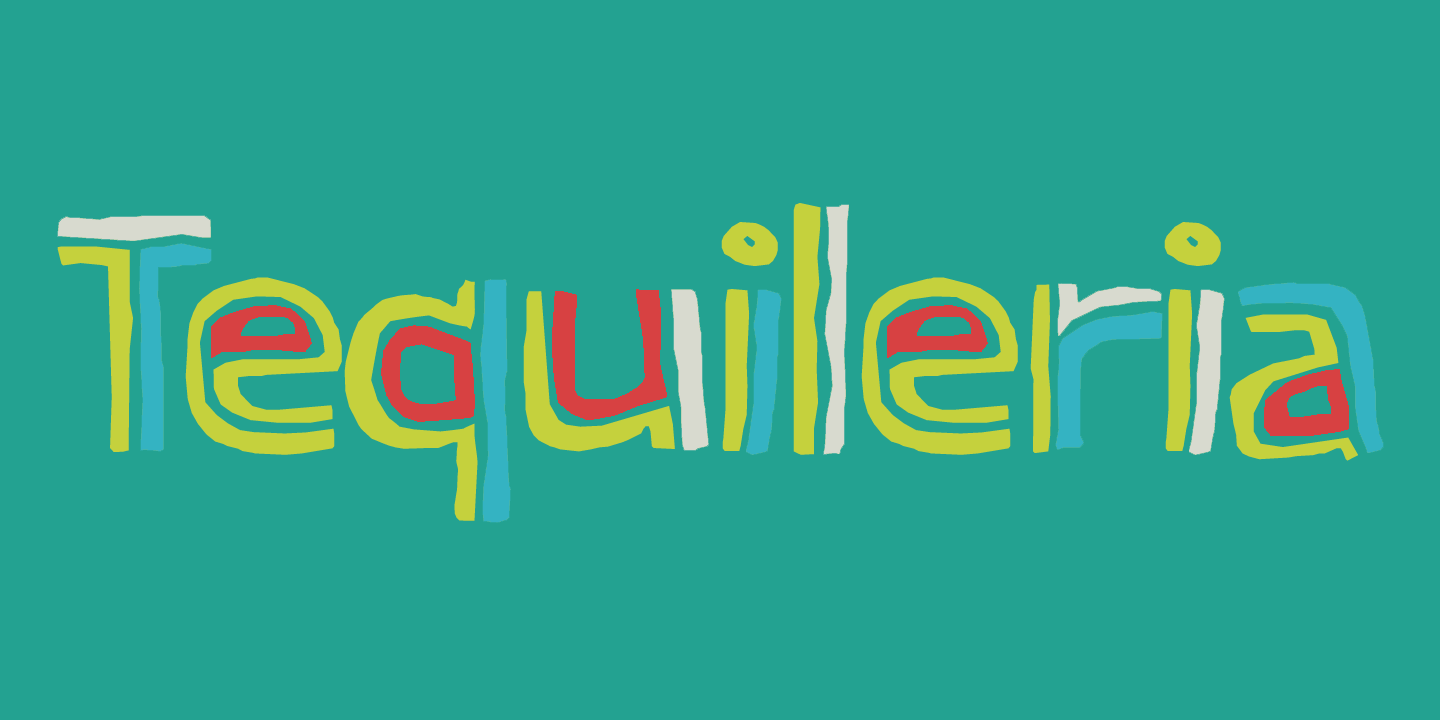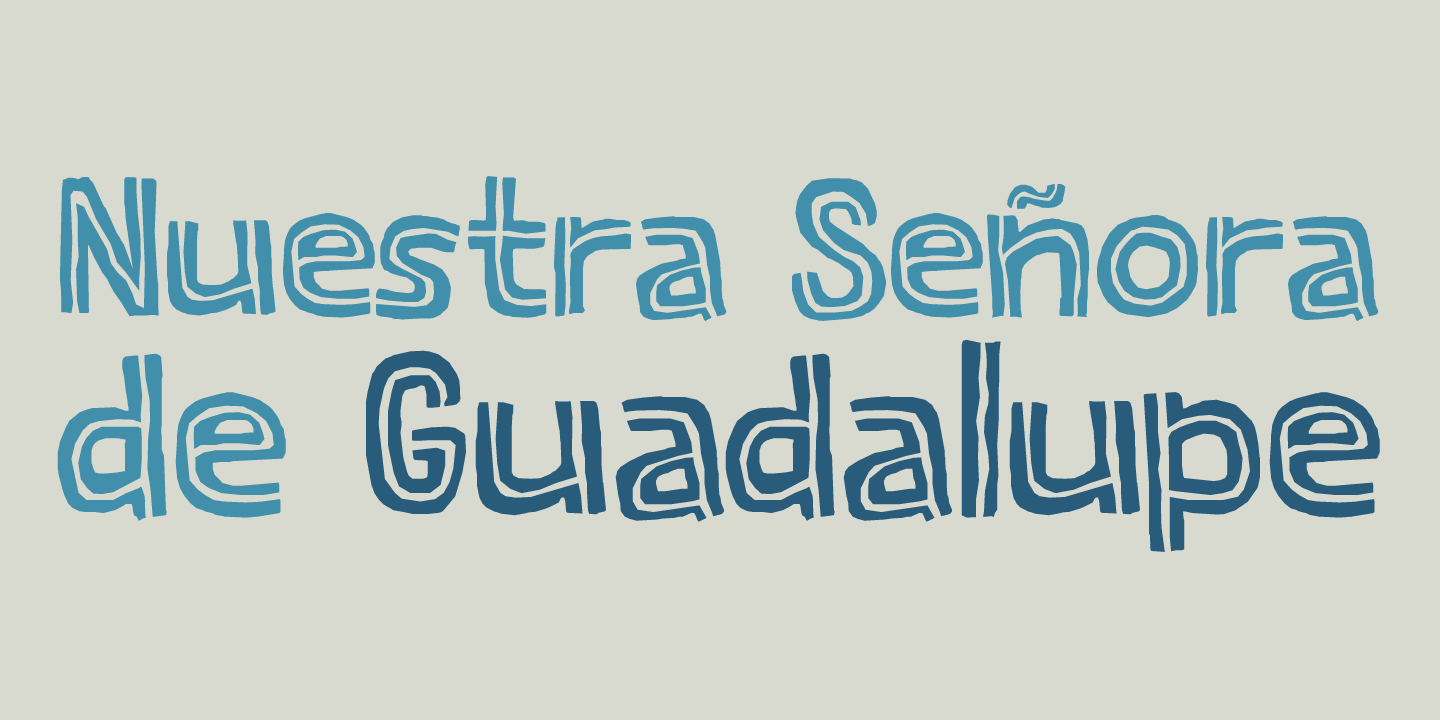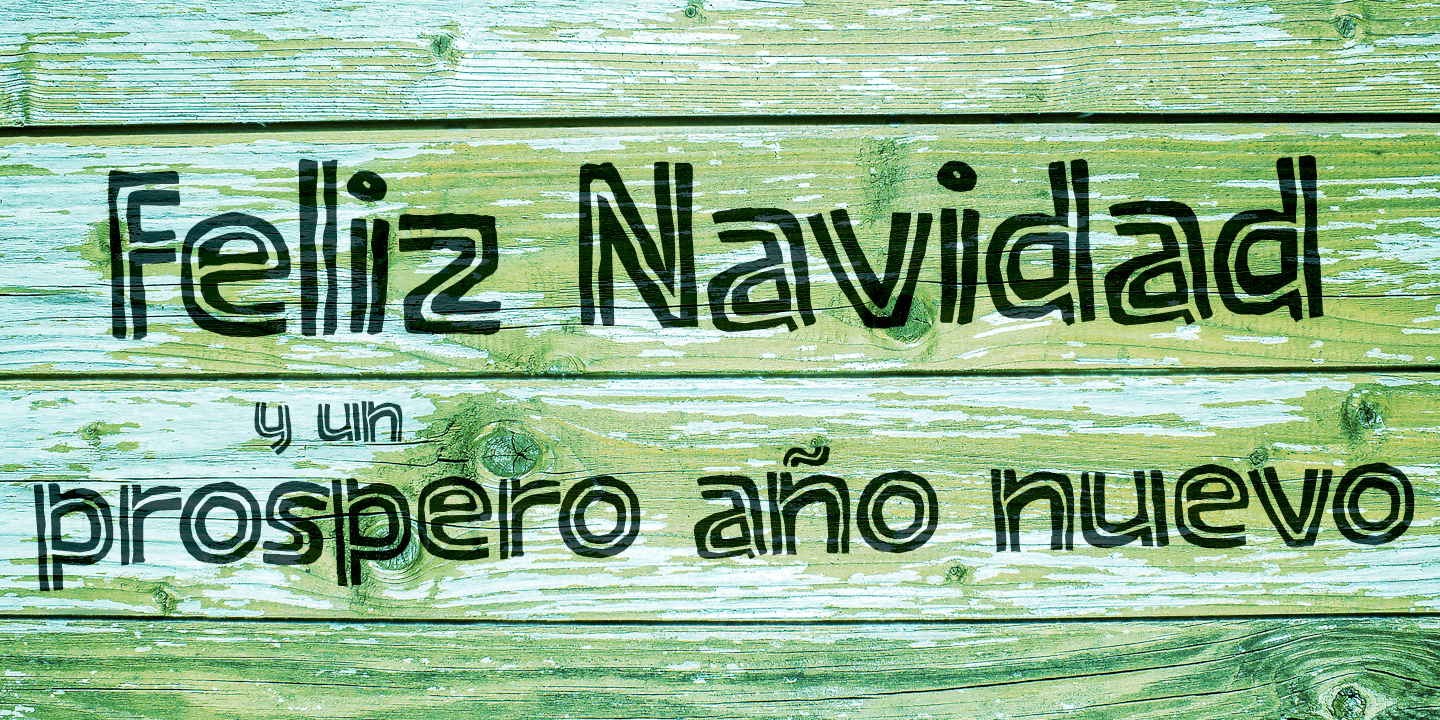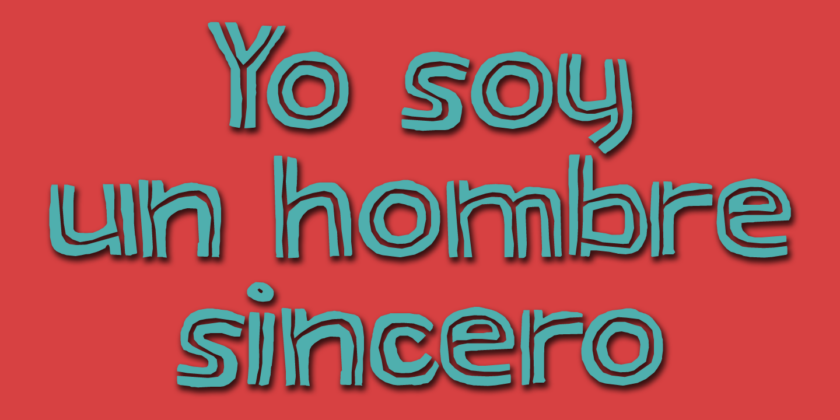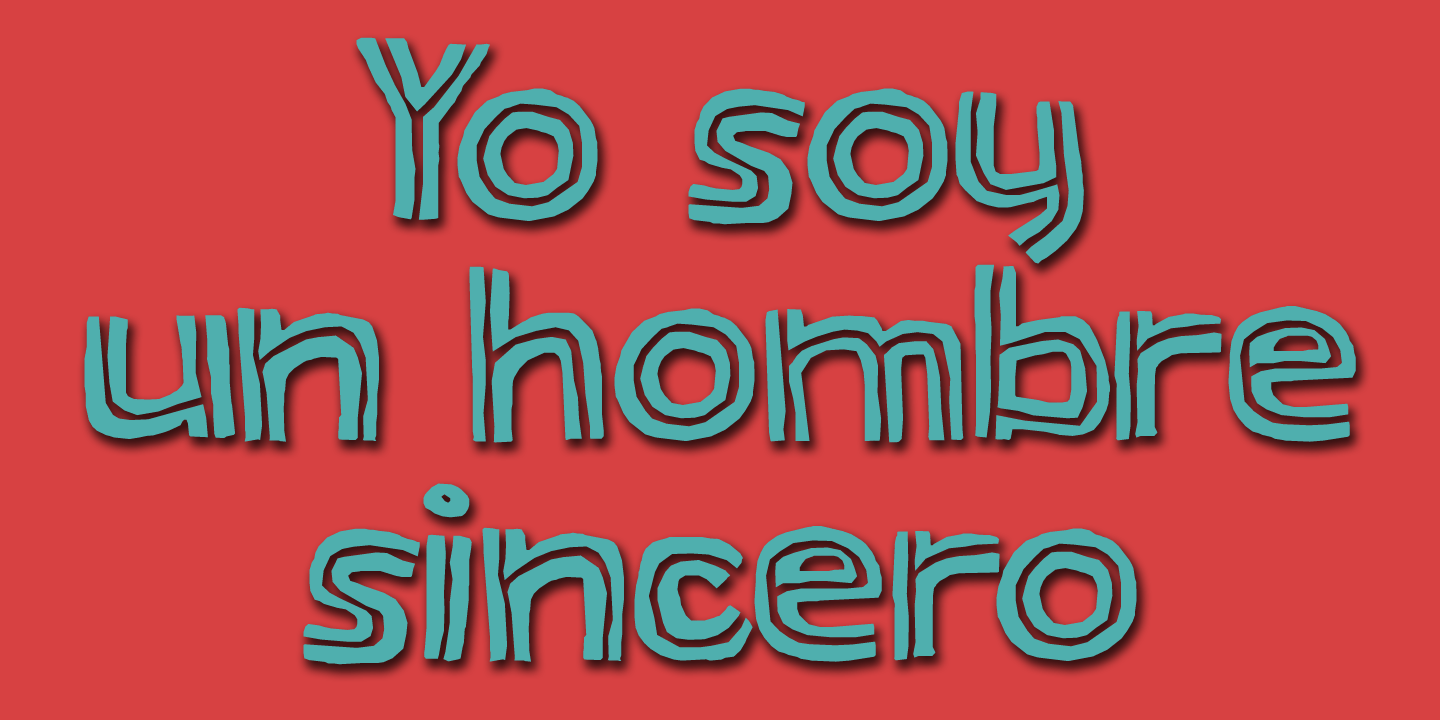
About Tequileria
Tequila? I have to admit that I am not a drinker. I do like Tequila, though, even though I can\’t remember when I last had a shot. Tequileria is a very recognisable inline display style font. It would look great on posters and book covers, packaging and…